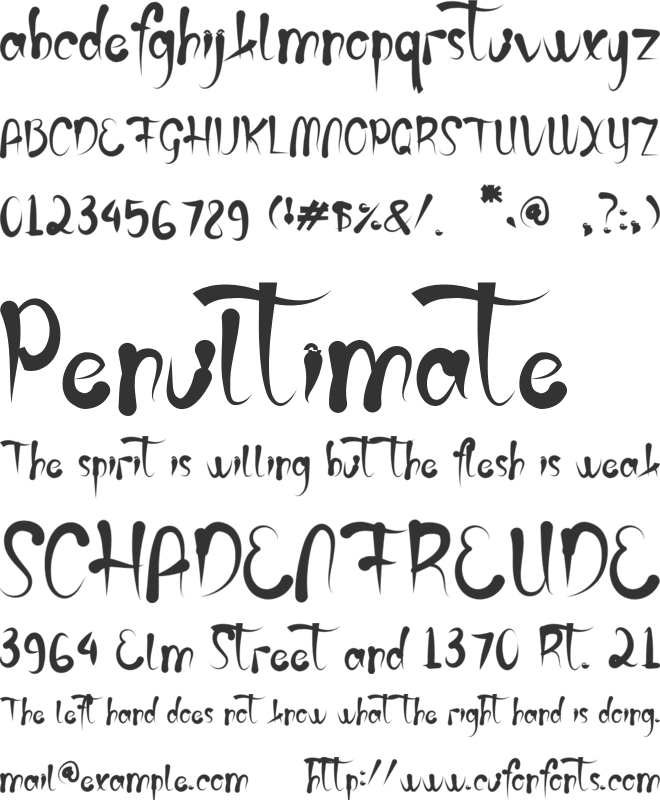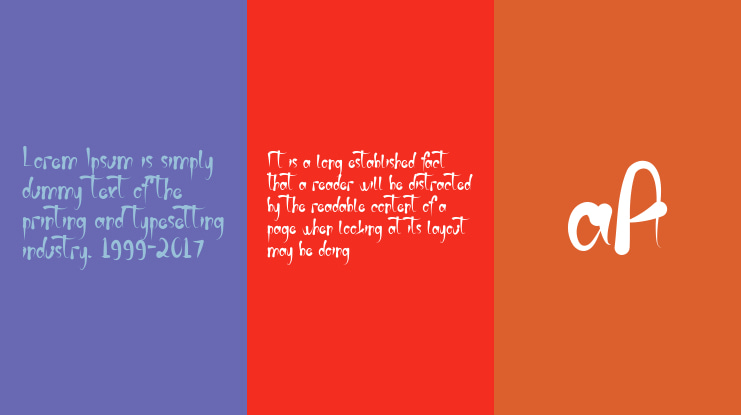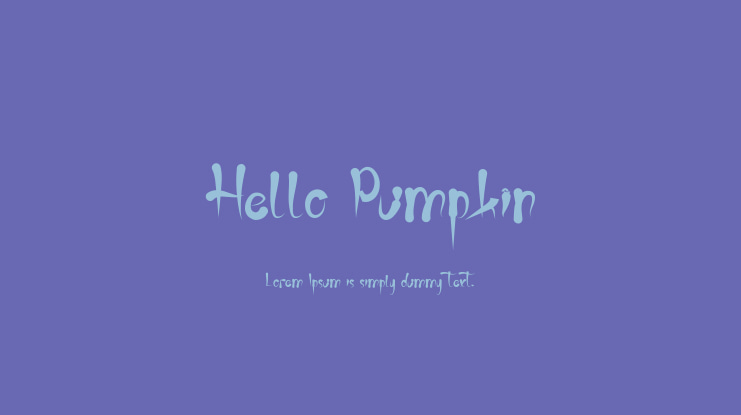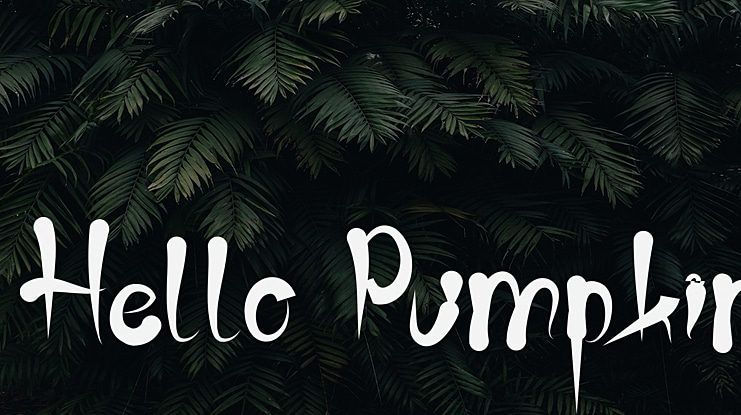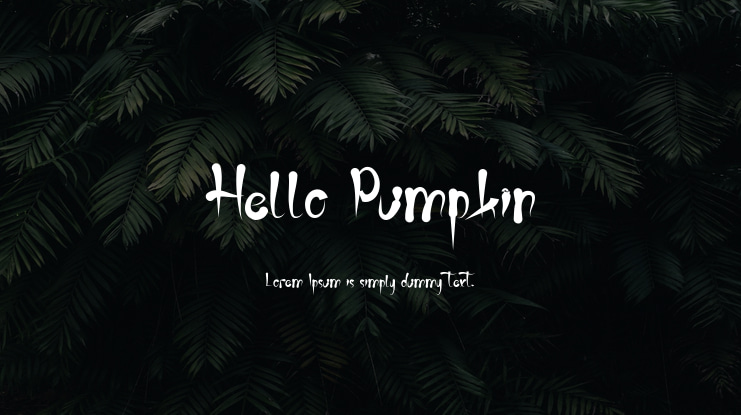
Hello Pumpkin Font
Hello Pumpkin is a fun display font. Clean and a little bit quirky, this font is the perfect fit for all of your logos, branding, social media, and crafty DIY projects.